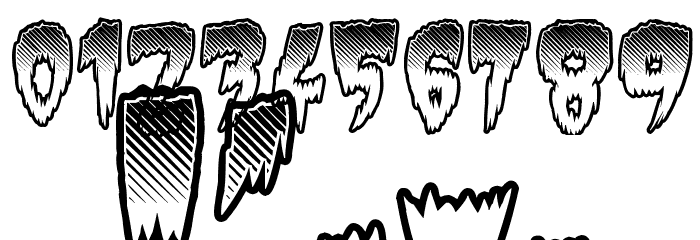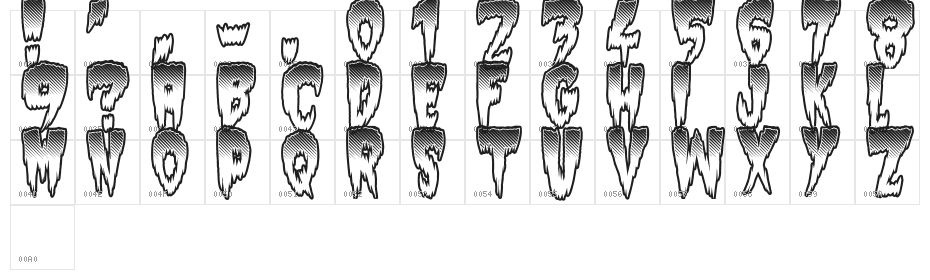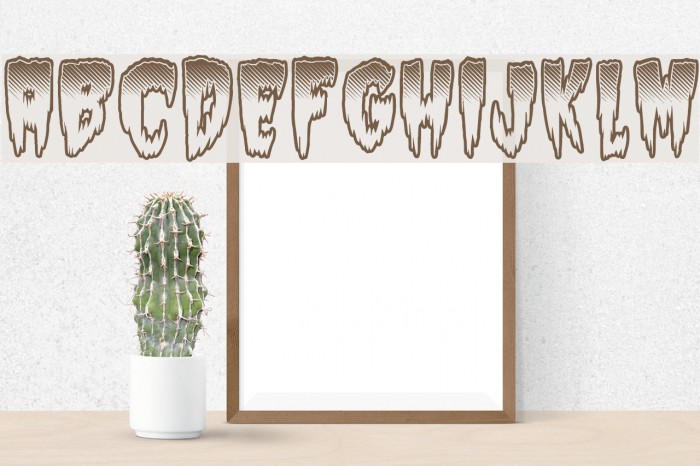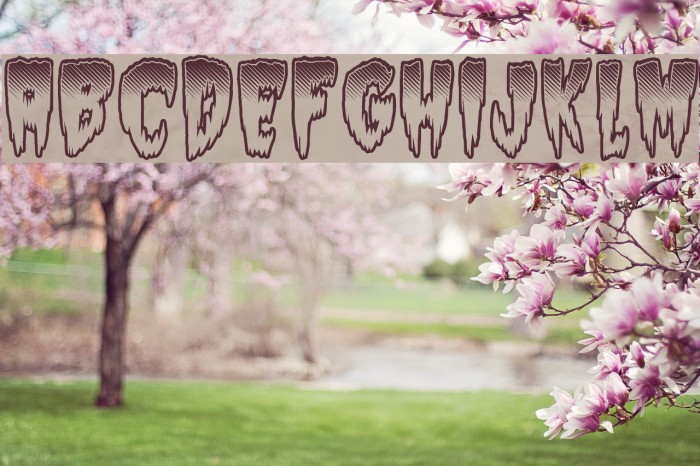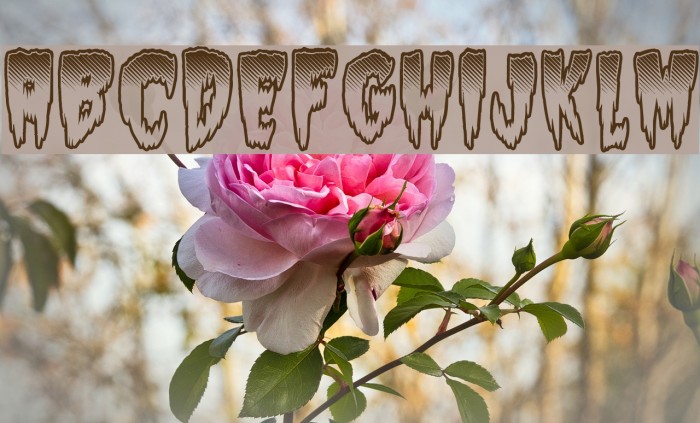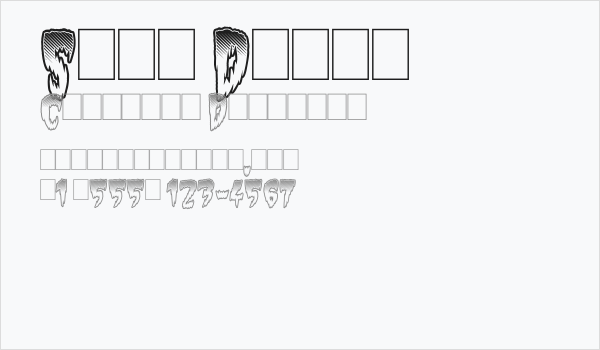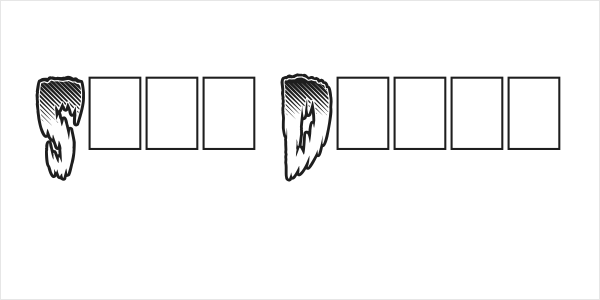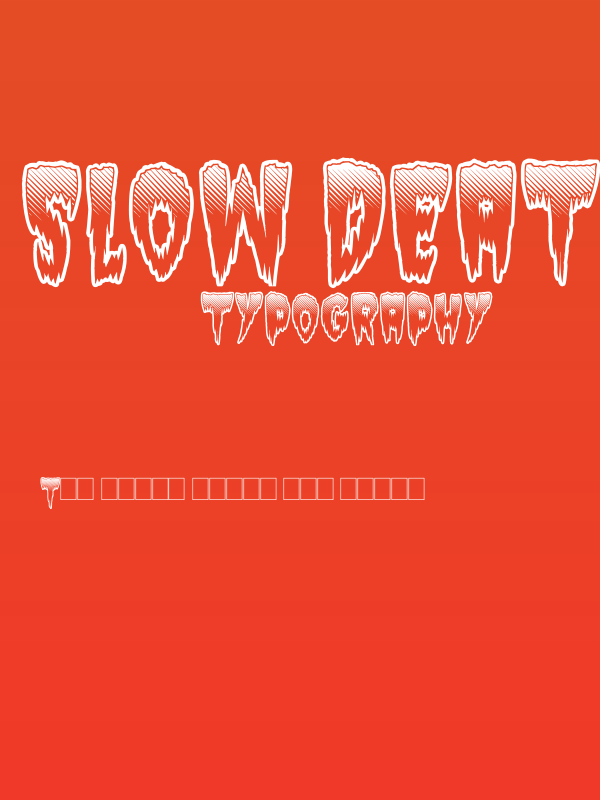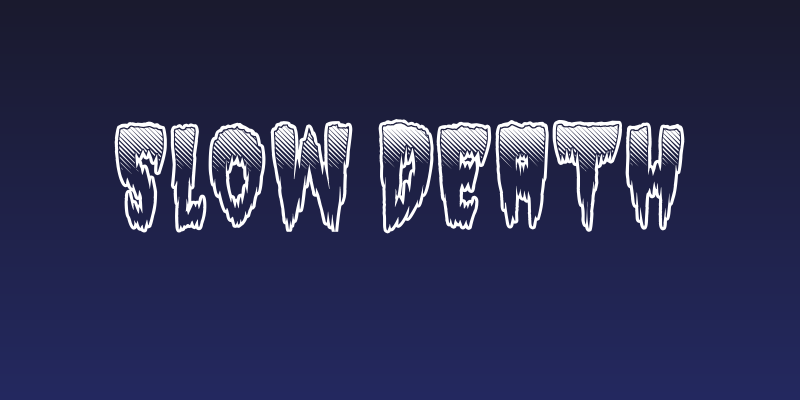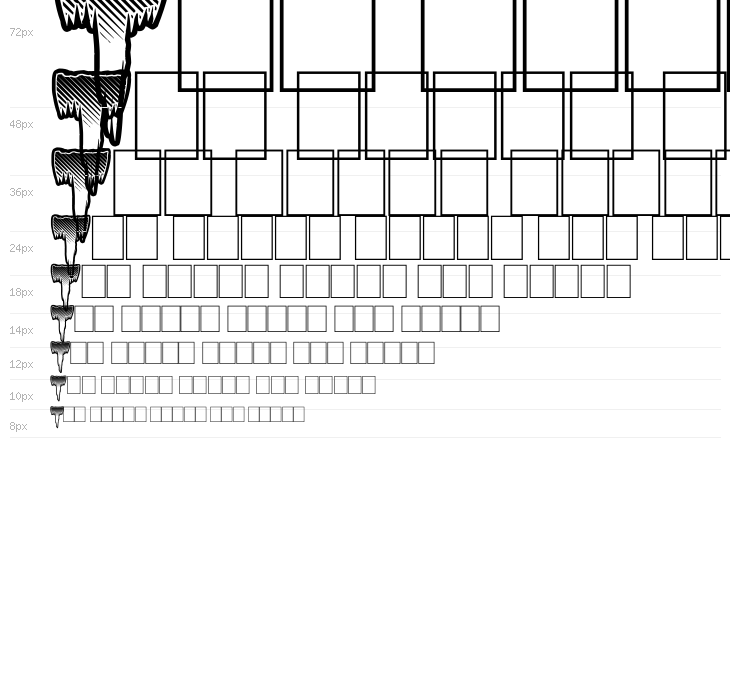
Slow Death Font
Slow Death Description
This font features a bold, dripping design that evokes a sense of horror and decay. Each character appears as if it is melting or dripping, with a textured, shaded interior that adds depth and dimension. The style is highly decorative, with exaggerated serifs and a hand-drawn appearance. The uppercase letters are consistent in their dramatic presentation, while the numbers maintain the same dripping effect, ensuring a cohesive look across all characters. This font is perfect for creating a spooky or eerie atmosphere, making it ideal for Halloween-themed projects or any design that requires a touch of the macabre.
| Use Case | Headlines, Posters, Themed Events |
| Proposed Projects | Ideal for Halloween invitations, horror movie posters, themed event flyers, and spooky merchandise designs. |